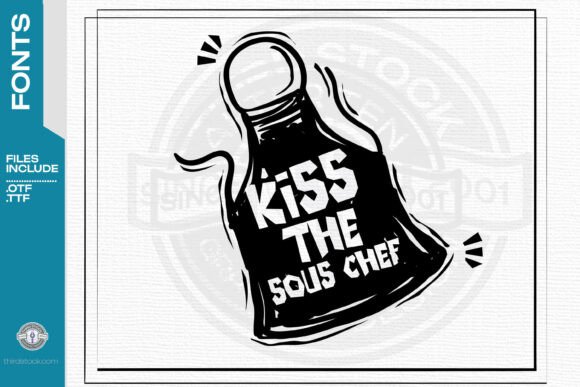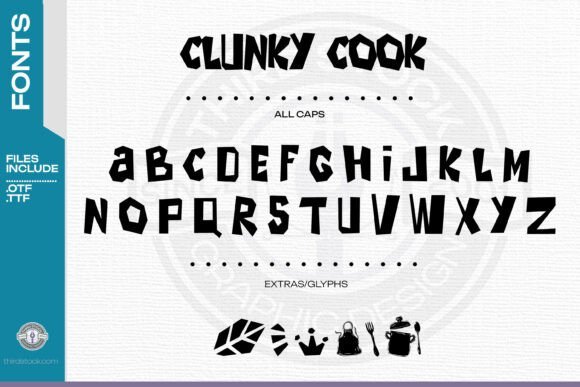
Introduction to Clunky Cook Font
Introducing Clunky Cook, a delightful, chunky block-style font, cleverly infused with a sprinkling of culinary-inspired dingbats.
This playful typographic creation offers a burst of creativity where both the art of writing and cooking collide, serving up a hearty blend of visual flavor .